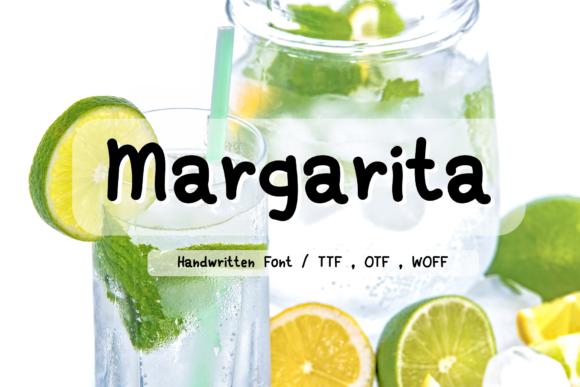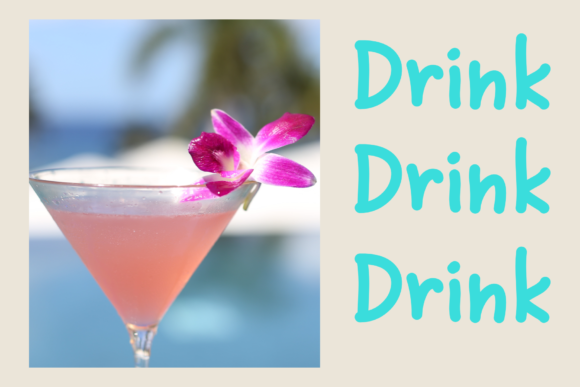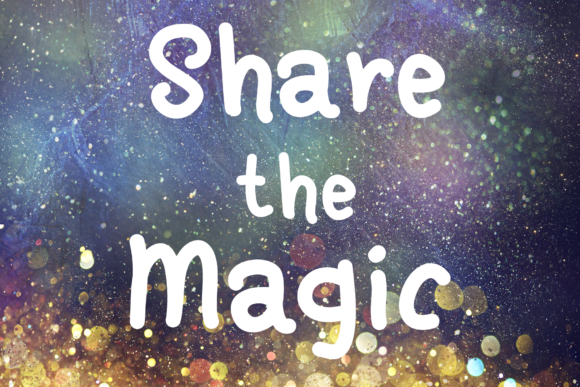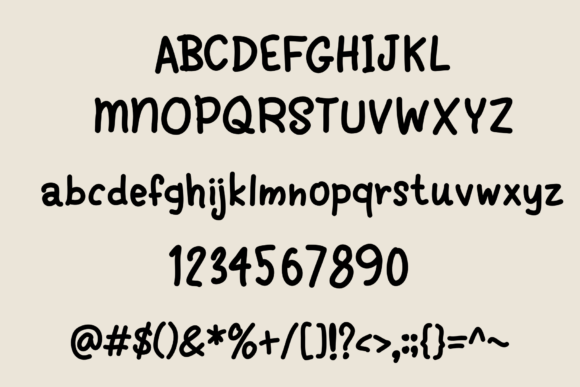
About Margarita Font
Margarita is a sweet and friendly handwritten font. Its natural and unique style makes it incredibly fitting to a large pool of designs. This font is perfect for children themed designs, especially when combined with bright colors.